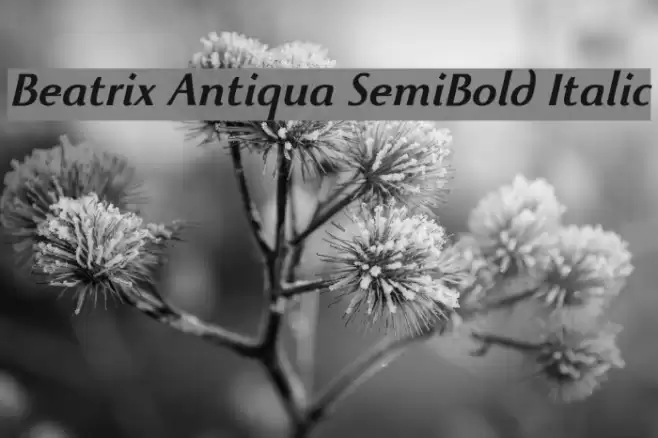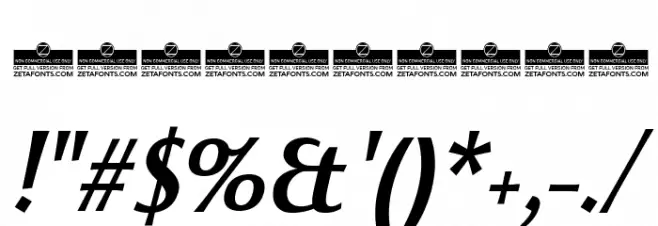
Beatrix Antiqua SemiBold Italic Font
Beatrix Antiqua SemiBold Italic Description
This font exhibits a classic and elegant style with a semi-bold weight and italicized form. The characters have a refined and sophisticated appearance, with smooth curves and sharp serifs that add a touch of formality. The uppercase letters are tall and commanding, while the lowercase letters maintain a consistent flow, enhancing readability. The numerals are well-proportioned, and the special characters are designed to complement the overall aesthetic. This font is suitable for projects that require a touch of elegance and tradition, such as formal invitations, editorial design, and branding.
A classic semi-bold italic font with elegant serifs and smooth curves from Uncategorized fonts.
- Proposed Projects: Ideal for formal invitations, editorial design, branding, and luxury product packaging.
- Overall Style: Classic